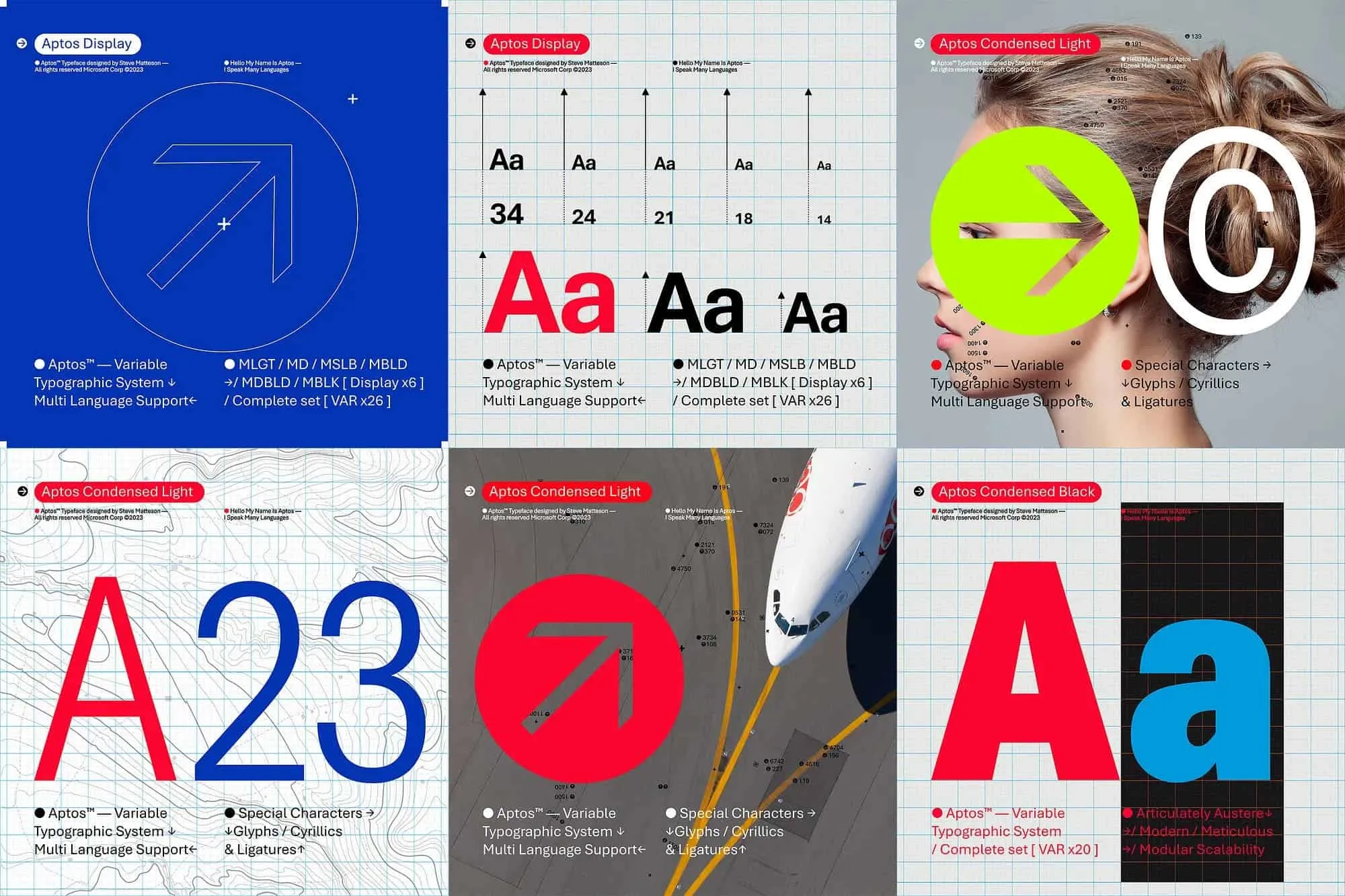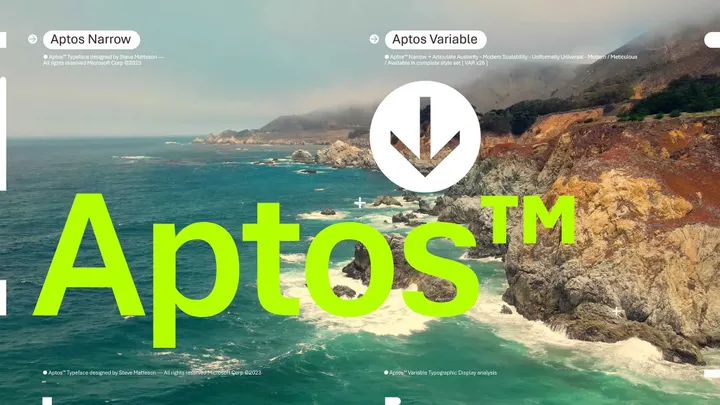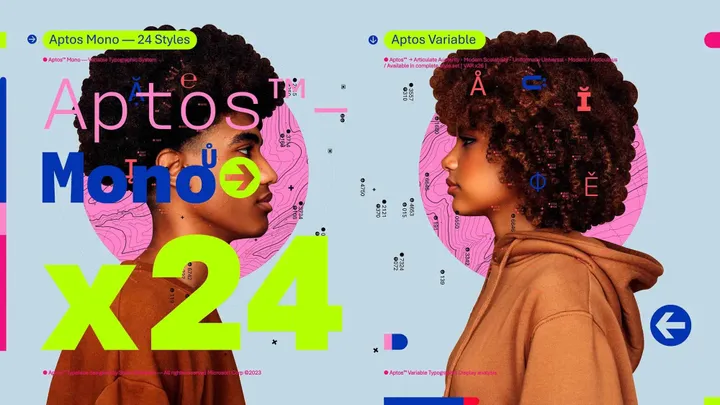
Microsoft has recently announced a major change to their popular
office suite - for the first time in 15 years, the default font will be changed. The current default font, Calibri, will be replaced by Aptos, a new font designed by Steve Matteson.
In a post on
Medium, Si Daniels, the Principal Manager for Microsoft Office Program Design, explained that Calibri had been the beloved default font for 15 years, but it was time for a change. Aptos will be the new default font in Word, Outlook, PowerPoint, and Excel for hundreds of millions of users.
Microsoft Office Default Font to Change for the First Time in 15 Years
Aptos is a sans-serif font, which means that it does not have the small lines or flourishes that appear at the ends of letters, known as serifs. This makes the letters simpler and easier to read. The letter shapes are also simple and even, which further enhances readability. According to Microsoft, Aptos is a "humanist sans-serif font" that is more "modern, yet approachable" and "professional, but not too formal."
Steve Matteson, the designer of Aptos, is also responsible for creating the TrueType and Segoe fonts. The announcement of the new font has got enthusiasm from the design community. With many praising its modern and clean look.
The change to Aptos as the default font will take place in an upcoming
update to Office. The exact release date has not been announced, but it is expected to be in the coming months. The change is a major one for
Microsoft, as the default font is a key part of the Office experience. It will be interesting to see how users react to the new font. And whether it becomes as beloved as Calibri was.
Overall, the change to Aptos is a significant
update for Microsoft's Office suite. With its modern and approachable design, the new font is sure to appeal to many users. However, it remains to see whether it will become as iconic as its predecessor, Calibri. Regardless, the change demonstrates Microsoft's commitment to constantly improving and updating their products to provide the best possible experience for their users.